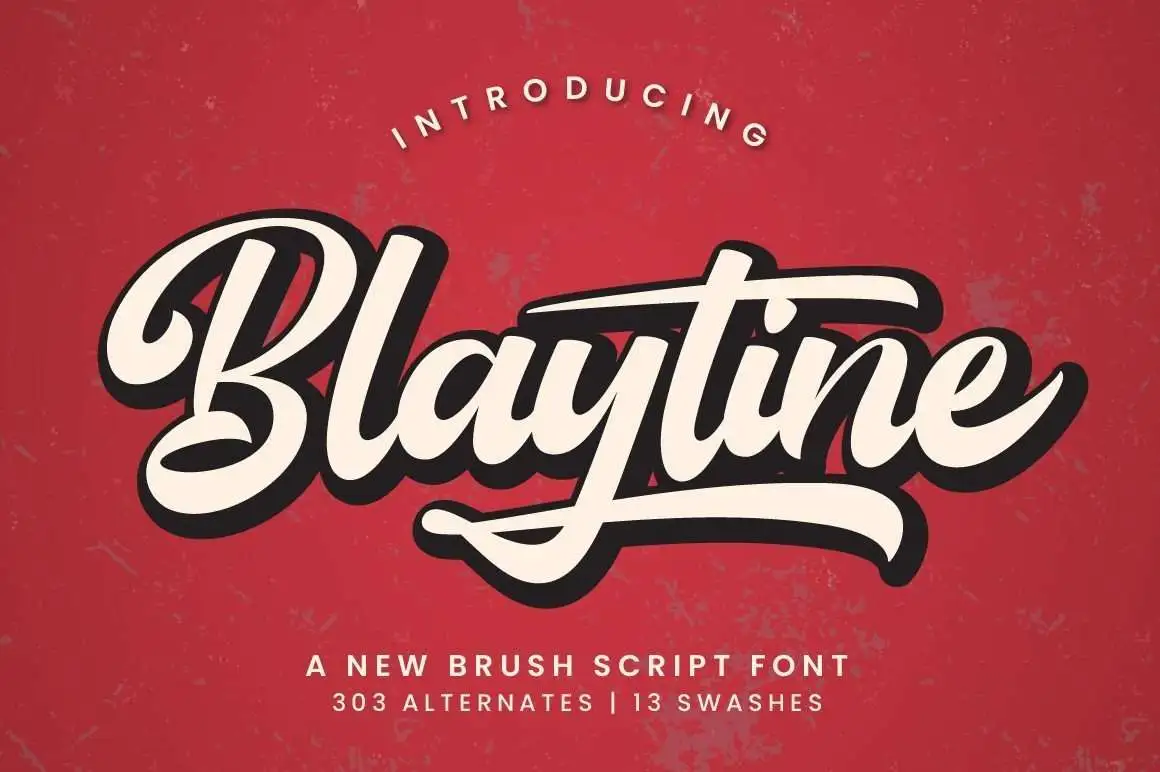
Blaytina Font
Blaytina Font is perfect for feminine branding, beauty product packaging, fashion magazines, wedding invitations, jewelry catalogs, cosmetic advertisements, luxury spa materials, romantic greeting cards, boutique signage, lifestyle blogs, elegant social media graphics, and sophisticated editorial design.
What makes Blaytina Font exciting is its graceful elegance that perfectly captures contemporary femininity through delicate letterforms and refined aesthetic sensibilities. This enchanting typeface combines modern sophistication with gentle curves and subtle flourishes that create an irresistible charm for luxury and lifestyle brands. The font's balanced proportions and careful attention to detail convey quality and exclusivity while maintaining approachable warmth that resonates with discerning female audiences. Its versatile character allows it to work beautifully across various applications, from intimate personal communications to high-end commercial branding that requires both elegance and readability.
The Blaytina Font family includes light, regular, and bold weights, featuring stylistic alternates, elegant swashes, and decorative ligatures. The character set incorporates refined numerals, graceful punctuation marks, and sophisticated ornamental elements that enhance the font's feminine character and provide designers with extensive creative possibilities.
Whether you're creating luxury beauty brands, designing wedding materials, or developing sophisticated lifestyle communications, Blaytina Font Free Download delivers the refined elegance your premium feminine projects require. This premium typeface excels in applications where sophistication and emotional connection are crucial for brand positioning and audience engagement. The font's delicate beauty works exceptionally well across digital platforms and print media, making it an invaluable asset for designers targeting affluent female demographics. Luxury brands and design agencies choose this font for its ability to communicate femininity without appearing overly decorative or sacrificing professionalism. The comprehensive character support includes international symbols, expanding its usability for global luxury markets and multilingual applications. Professional designers appreciate its seamless performance across various media while maintaining consistent brand expression and emotional appeal. When you incorporate this exceptional typeface into your feminine luxury communications, you're selecting a typography solution that celebrates contemporary womanhood through sophisticated design, ensuring your brand connects authentically with discerning female audiences while maintaining the premium positioning essential for success in today's competitive luxury marketplace.